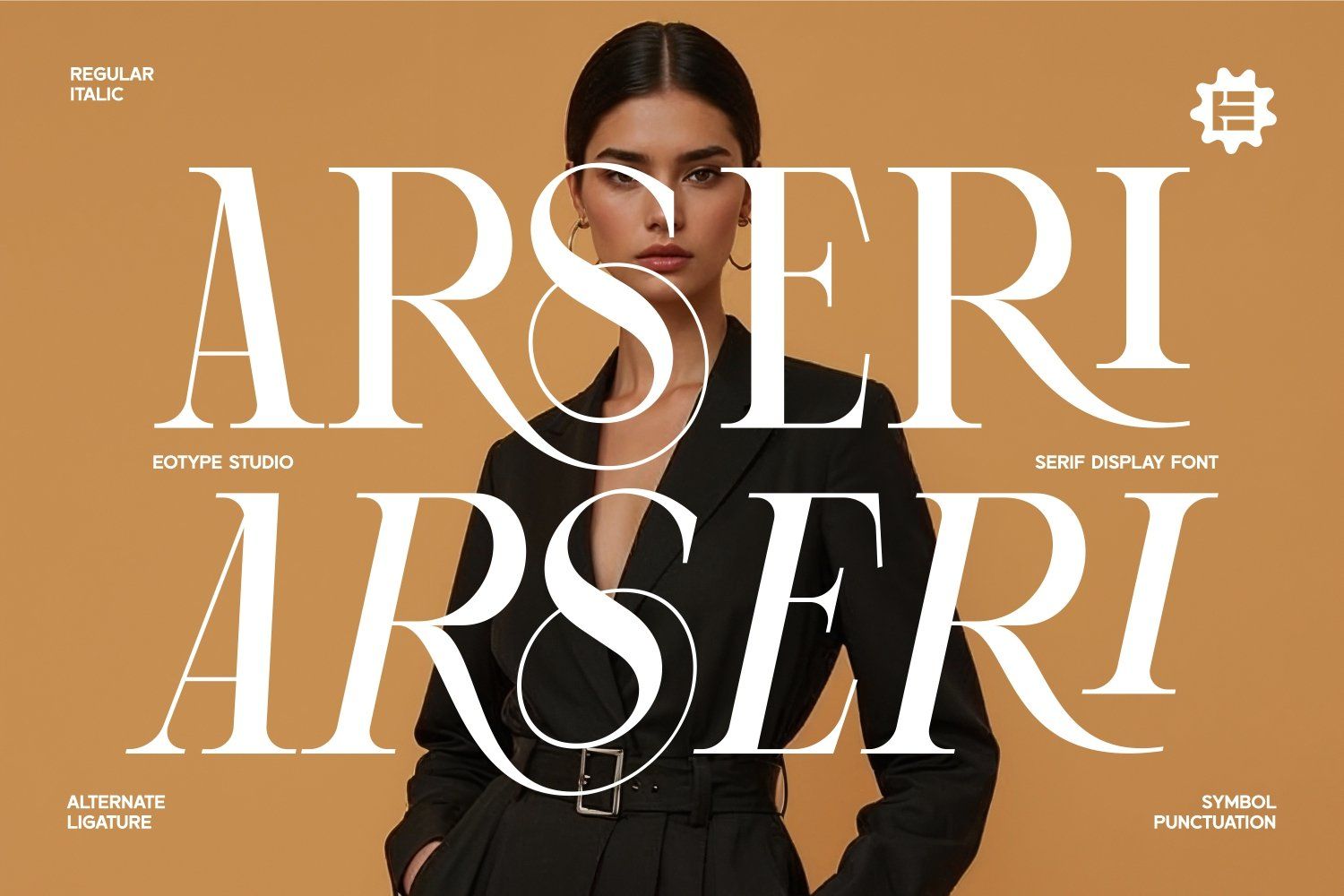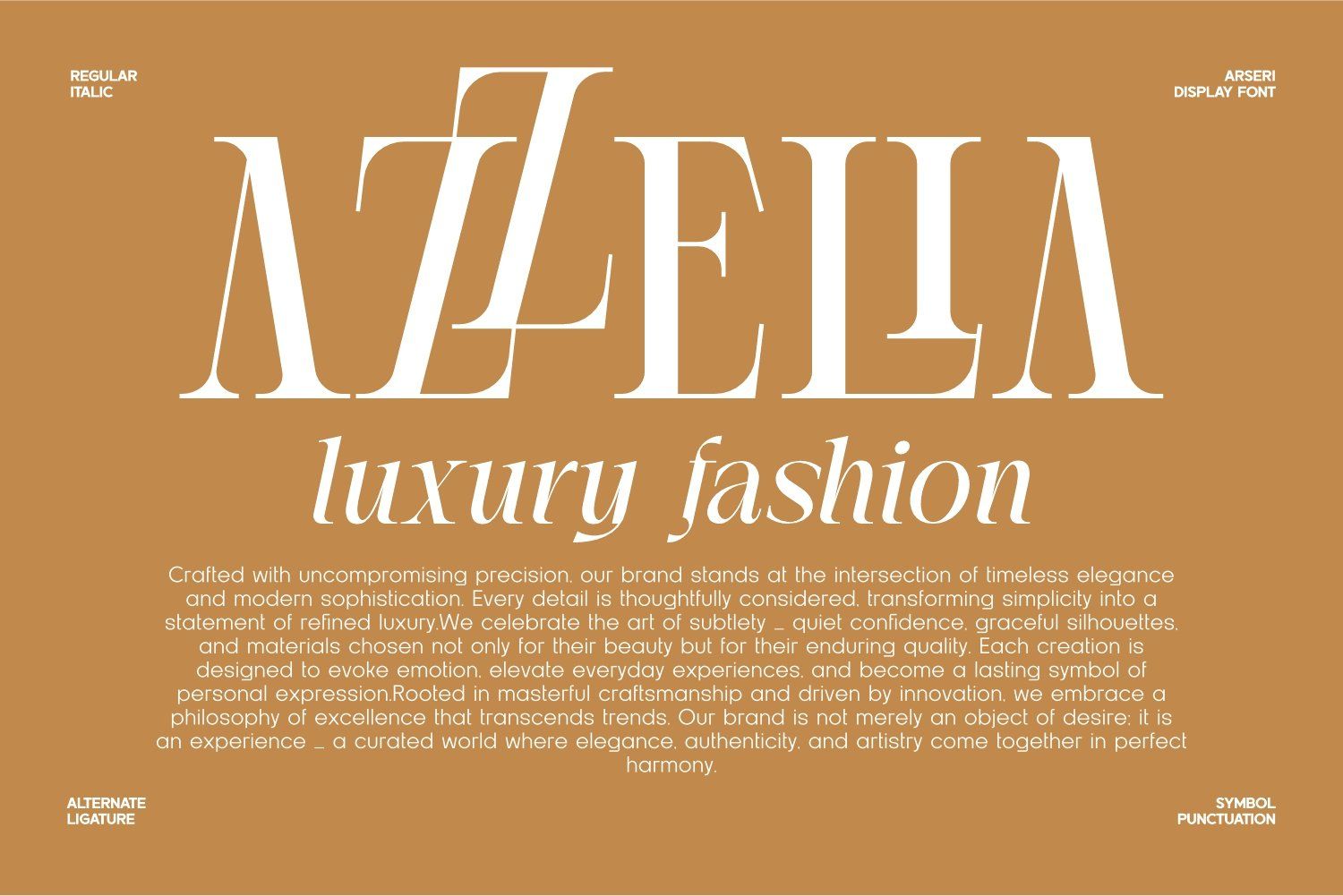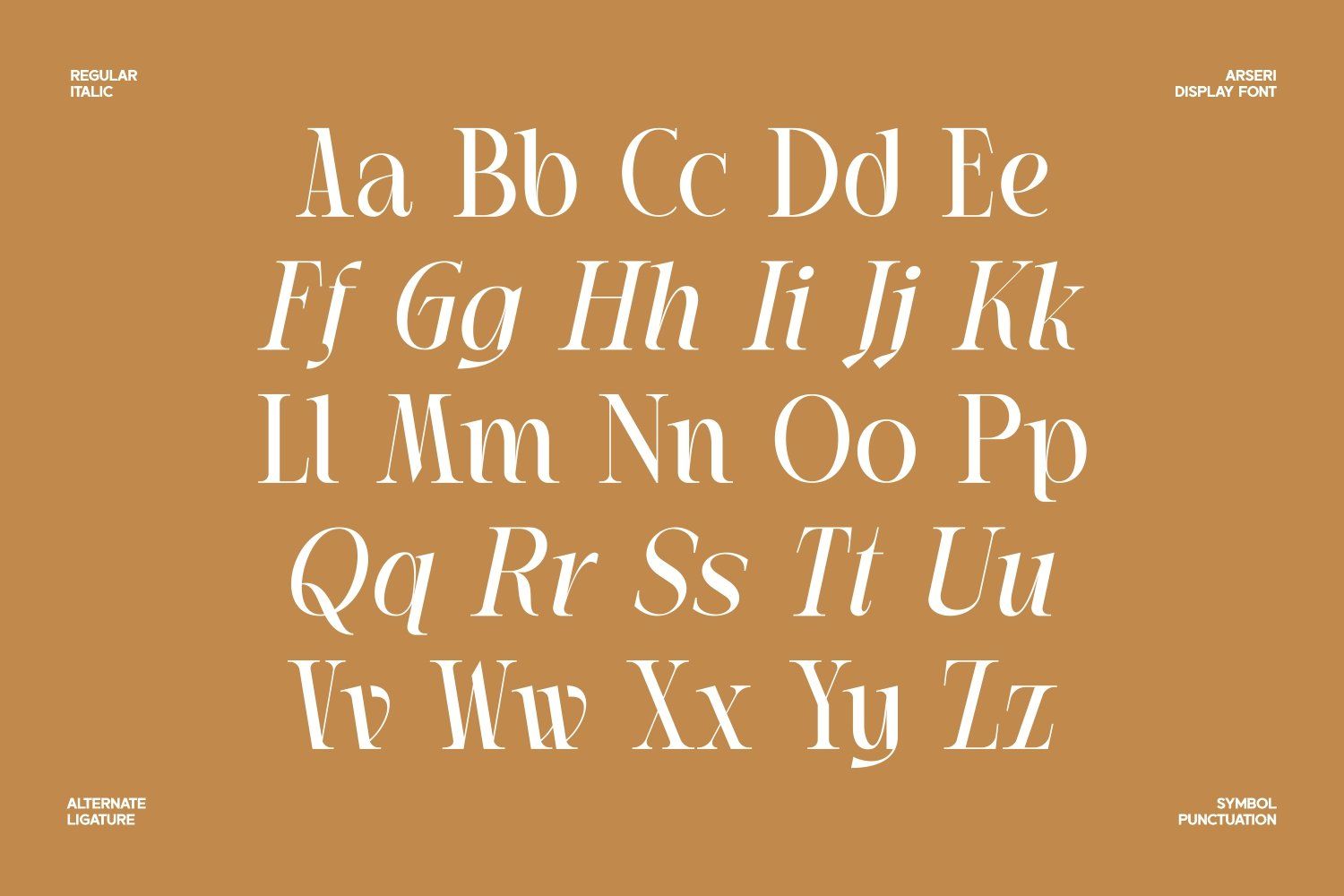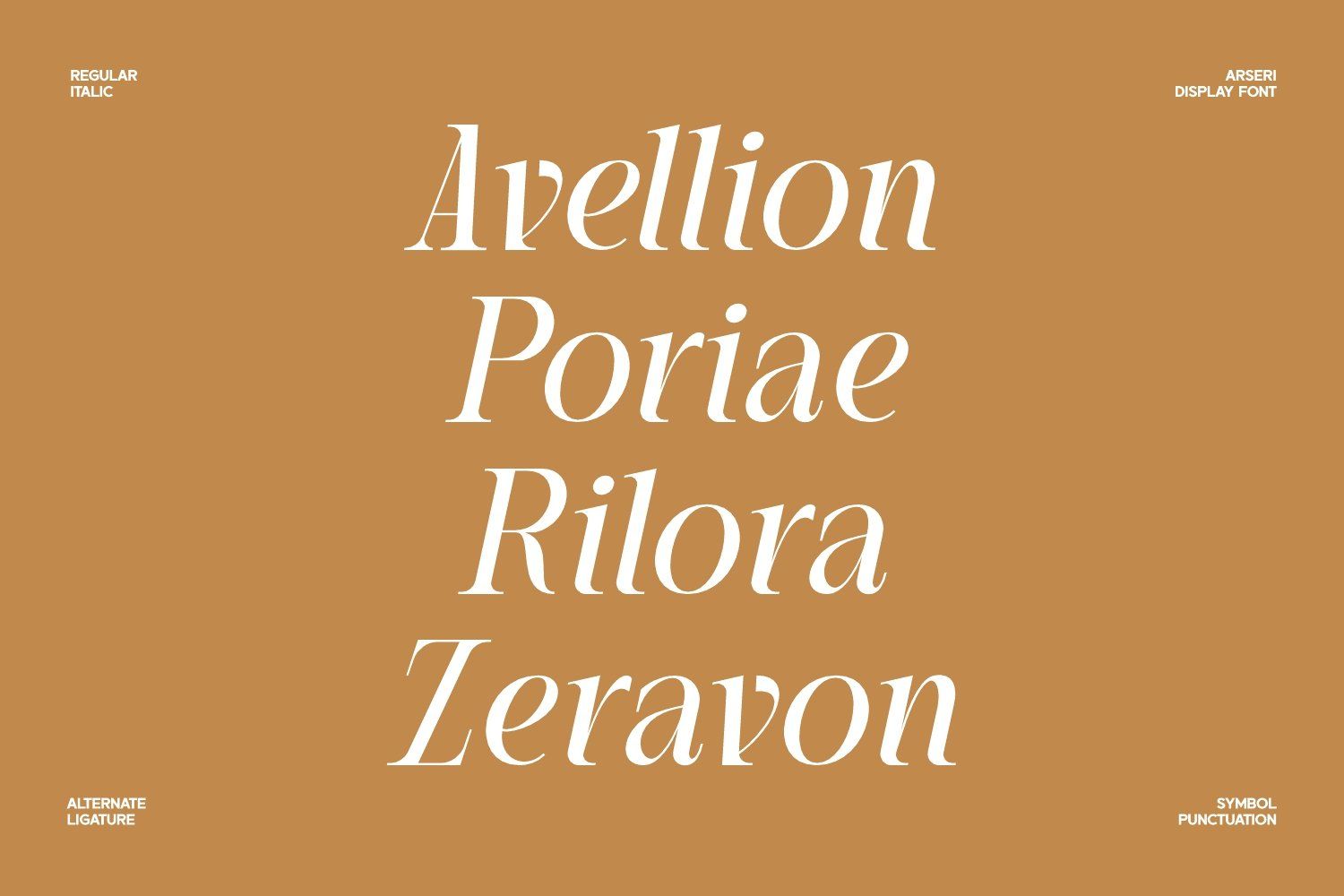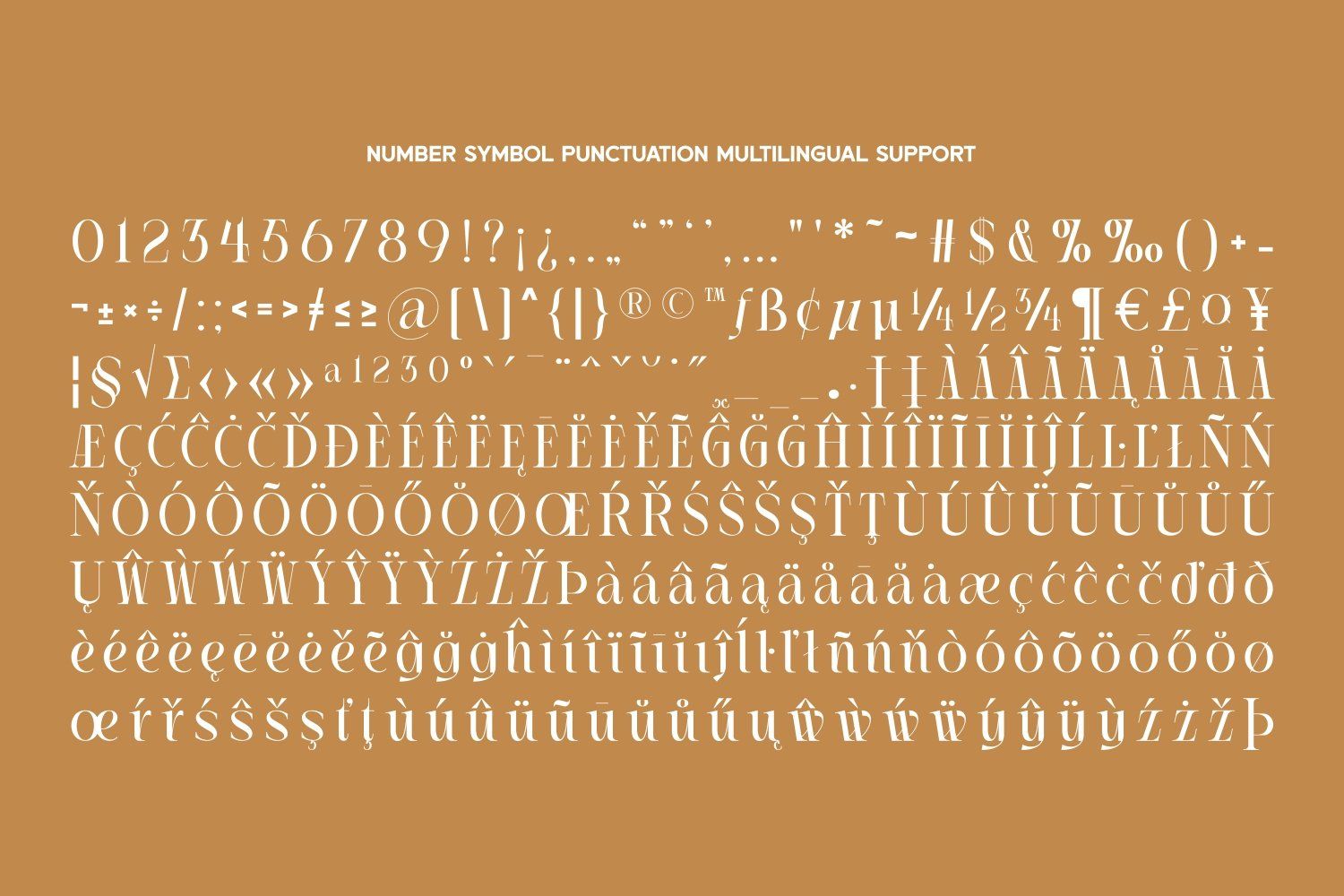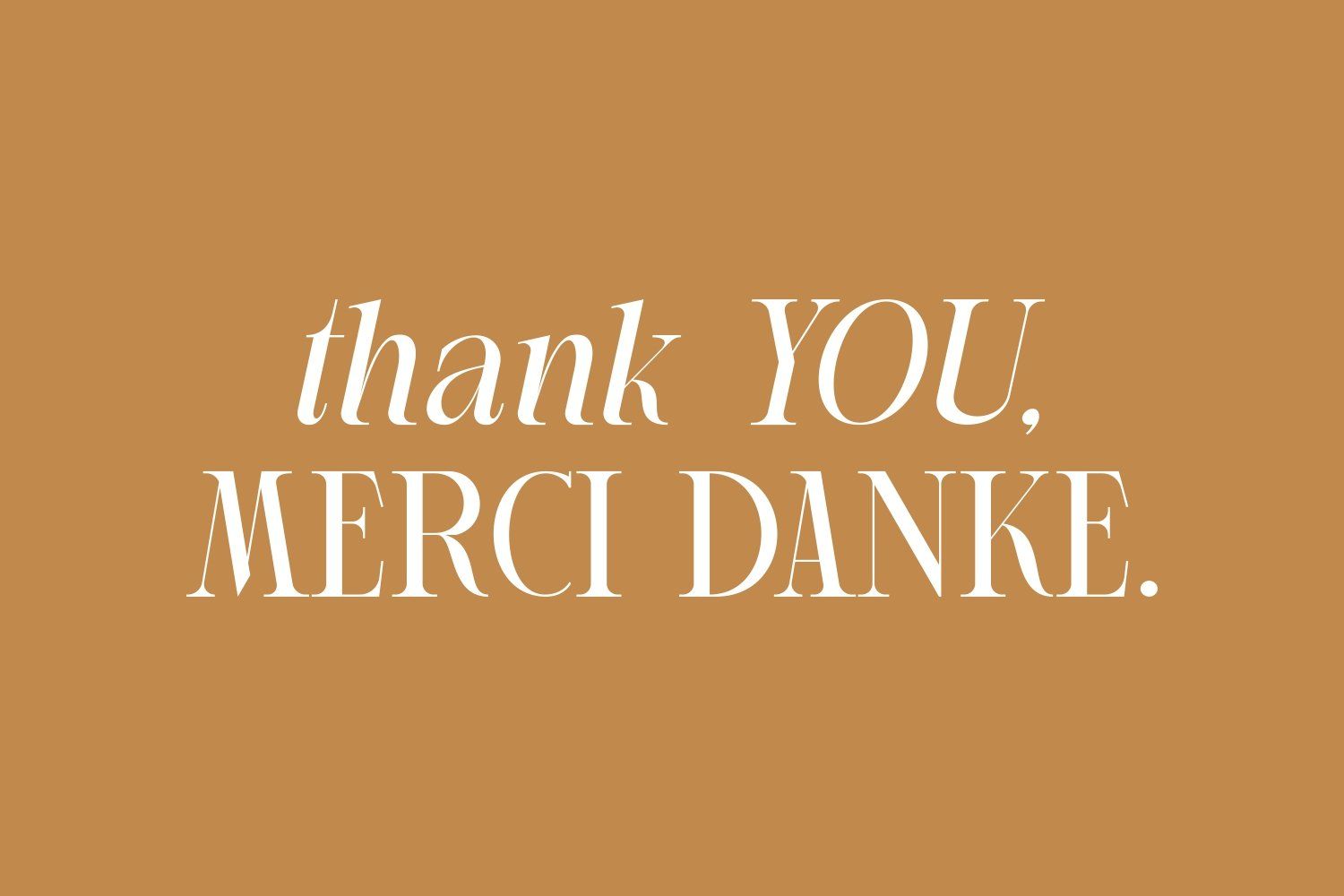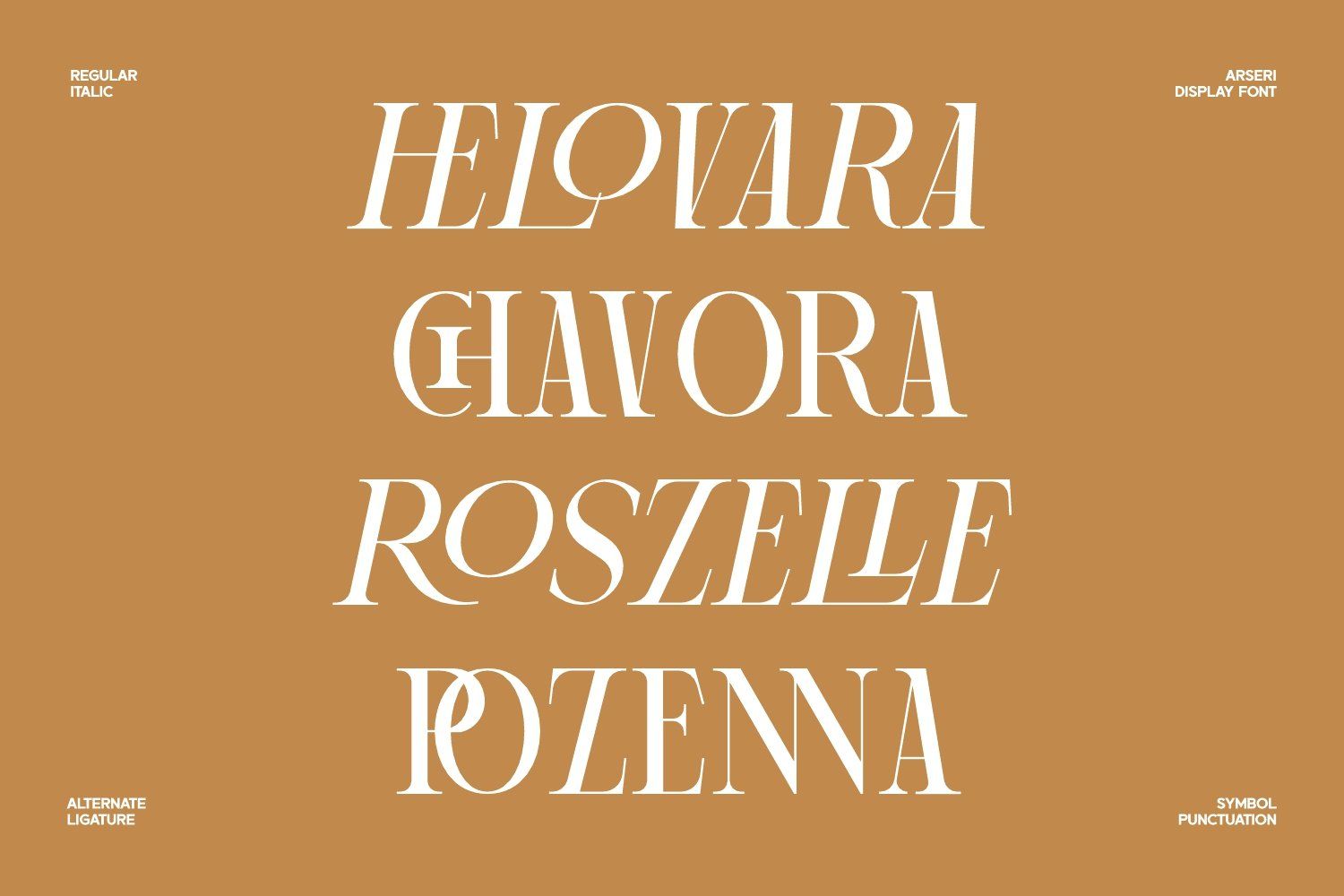
Arseri is a refined serif display font crafted to bring sophistication and modern elegance to any visual project. Designed with graceful high-contrast strokes, elongated forms, and expressive curves, Arseri blends classic serif traditions with a contemporary fashion-driven aesthetic. Perfect for branding, editorial layouts, luxury packaging, and statement headlines.
This typeface comes in Regular and Italic styles, offering versatility for both bold display use and delicate typographic compositions. Arseri also includes a rich set of ligatures, alternates, refined punctuation, and extended multilingual support, giving designers the freedom to build distinctive, polished typography with ease.
Every detail of Arseri is intentionally shaped to evoke elegance, confidence, and timeless style making it an ideal choice for luxury branding, beauty products, magazines, lookbooks, and high-end creative projects.
Serif Display Font
Regular & Italic Styles
Extensive Ligatures & Alternates
Complete Punctuation & Symbols
Multilingual Support
Perfect for Branding, Editorial, Fashion, and Luxury Design
Give your designs a sophisticated voice with Arseri—a modern classic crafted for premium visual storytelling.